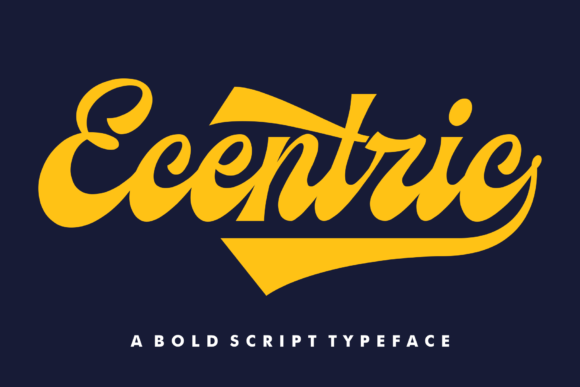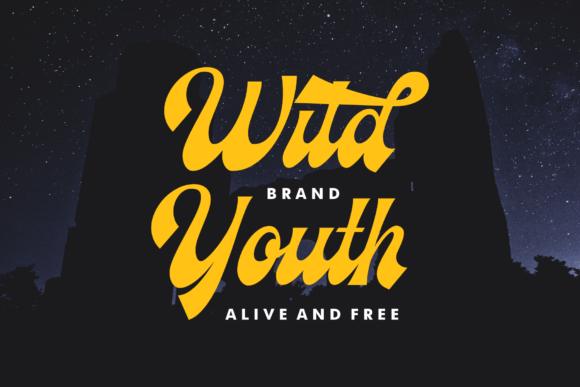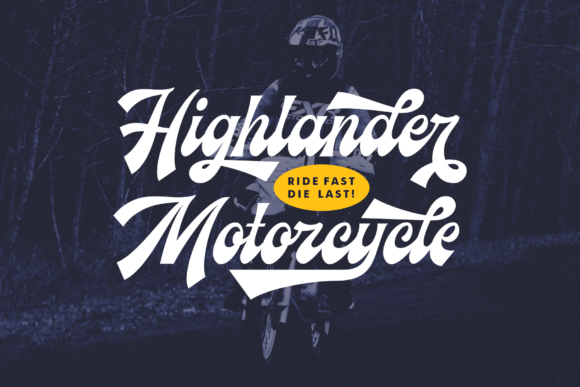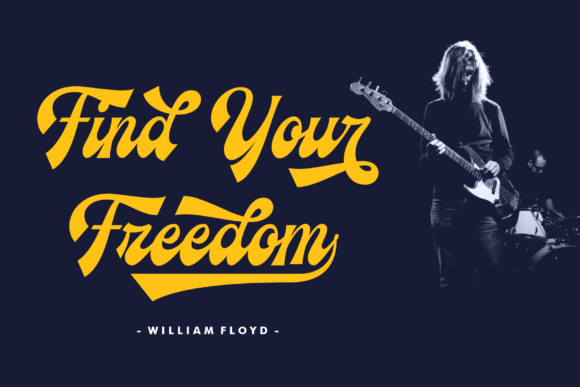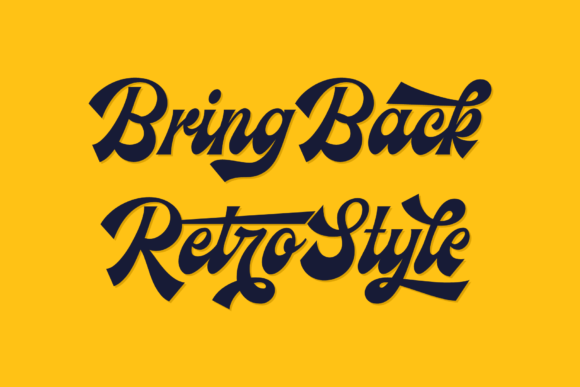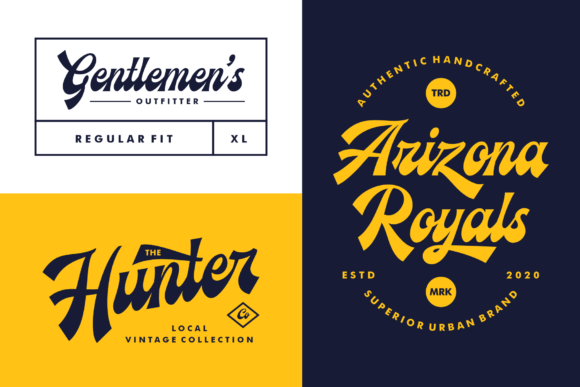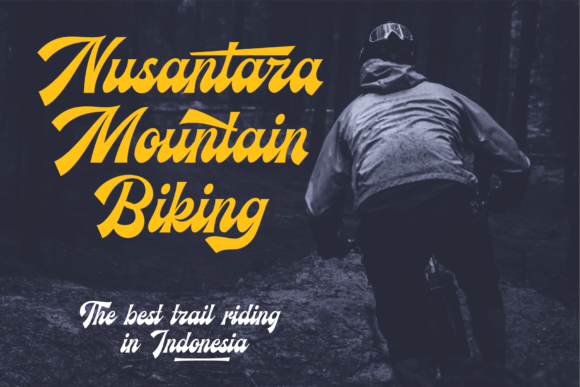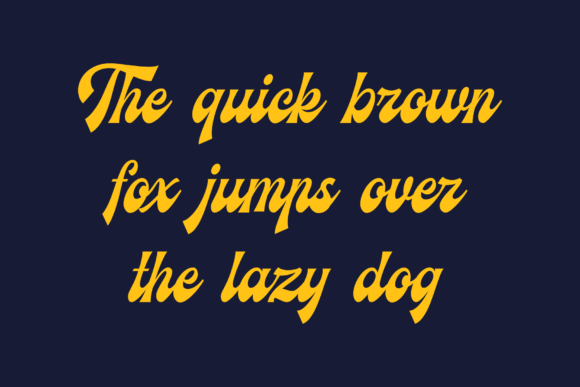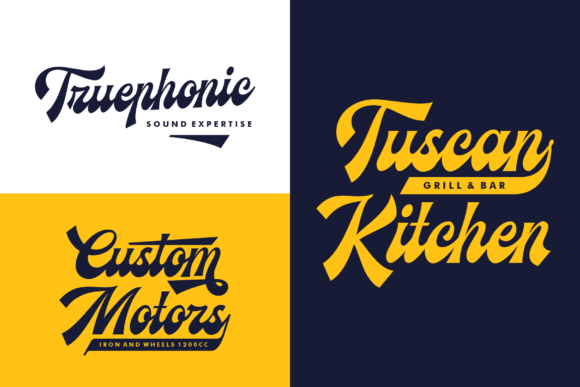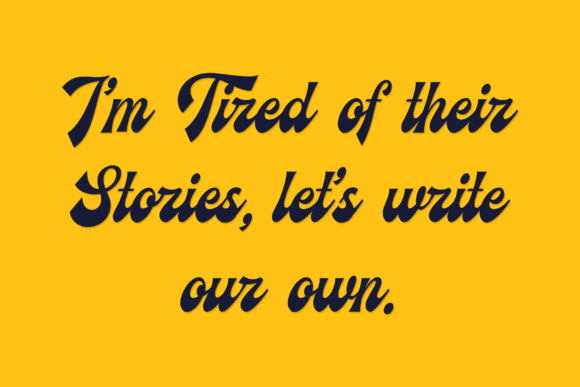
Ecentric Font
About Ecentric Font
Ecentric is a bold handwritten font, carefully handcrafted to become a true favorite. Its casual charm makes it appear wonderfully down-to-earth, readable and, ultimately, incredibly versatile. Use it to add that special retro touch to any design idea you can think of!